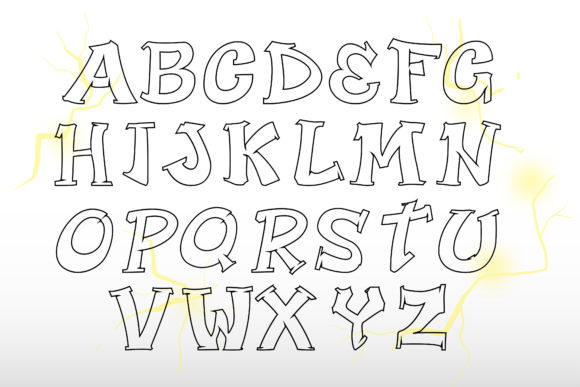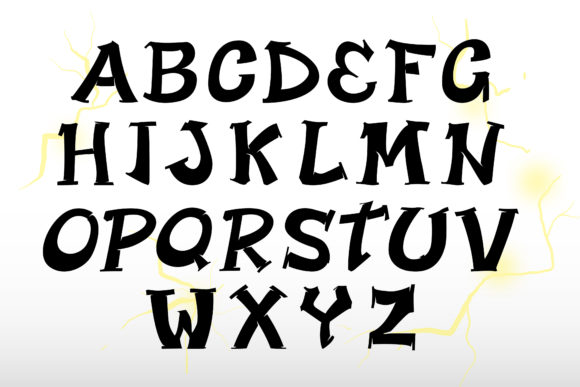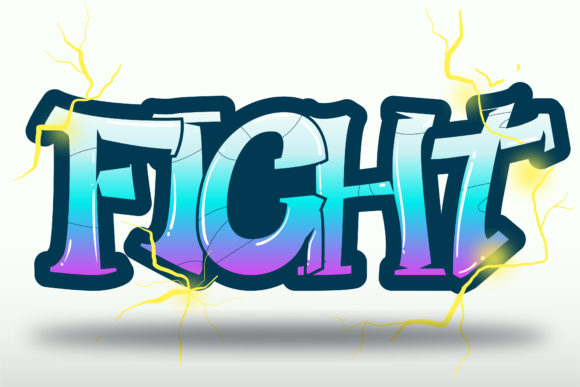
Unleash Your Creativity with Fight Font: The Ultimate Graffiti-Styled Display Font
Are you a designer or crafter looking for a font that can add a touch of edginess and futurism to your designs? Look no further than Fight Font, a graffiti-styled display font that’s perfect for creating bold and eye-catching designs. In this article, we’ll explore the features and benefits of Fight Font, and show you how to make the most of this awesome font.
What is Fight Font?
Fight Font is a stunning graffiti-styled display font that’s designed to give your designs a futuristic and street art vibe. With its bold and edgy letterforms, this font is perfect for creating designs that demand attention. Whether you’re working on a t-shirt design, sportswear, logo, advertisement, or clothing, Fight Font is the perfect choice.
Key Features of Fight Font
- Graffiti-Styled Letterforms: Fight Font features bold and edgy letterforms that are inspired by graffiti art. Each letter is carefully crafted to give your designs a unique and street art-inspired look.
- Display Font: Fight Font is a display font, which means it’s designed to be used at larger sizes. This makes it perfect for headlines, titles, and other design elements that need to make a big impact.
- Futuristic and Street Art Vibe: Fight Font has a distinctly futuristic and street art vibe, making it perfect for designers who want to create designs that are edgy and modern.
- Highly Versatile: Fight Font can be used for a wide range of design projects, from t-shirts and sportswear to logos and advertisements.
Benefits of Using Fight Font
So why should you choose Fight Font for your next design project? Here are just a few benefits of using this awesome font:
- Adds Edginess to Your Designs: Fight Font is the perfect way to add a touch of edginess to your designs. Its bold and graffiti-styled letterforms are sure to make your designs stand out.
- Perfect for Streetwear and Sportswear: If you’re designing for streetwear or sportswear, Fight Font is a great choice. Its futuristic and street art vibe is perfect for creating designs that appeal to a younger audience.
- Easy to Read: Despite its bold and edgy style, Fight Font is surprisingly easy to read. This makes it perfect for use in headlines and titles, where you want to make a big impact without sacrificing legibility.
- Customizable: Fight Font can be customized to fit your design needs. Whether you want to change the color, size, or style, Fight Font is easy to work with.
How to Use Fight Font in Your Designs
So how can you use Fight Font in your designs? Here are a few ideas to get you started:
- T-Shirt Designs: Fight Font is perfect for t-shirt designs. Use it to create bold and eye-catching headlines or graphics that will make your designs stand out.
- Sportswear: Fight Font is also great for sportswear designs. Use it to create logos, headlines, or other design elements that need to make a big impact.
- Logos: If you’re designing a logo, Fight Font is a great choice. Its bold and edgy letterforms are perfect for creating a logo that demands attention.
- Advertisements: Fight Font is also perfect for advertisements. Use it to create bold and eye-catching headlines or graphics that will grab the attention of your target audience.
Tips and Tricks for Getting the Most out of Fight Font
Here are a few tips and tricks for getting the most out of Fight Font:
- Experiment with Different Colors: Fight Font looks great in a variety of colors. Experiment with different colors to find the one that works best for your design.
- Use it in Combination with Other Fonts: Fight Font can be used in combination with other fonts to create a unique and interesting design. Try pairing it with a sans-serif font for a bold and edgy look.
- Pay Attention to Legibility: While Fight Font is easy to read, it’s still important to pay attention to legibility. Make sure to use a large enough size and a clear enough color to ensure that your text is easy to read.
In conclusion, Fight Font is an awesome graffiti-styled display font that’s perfect for designers and crafters who want to add a touch of edginess and futurism to their designs. With its bold and edgy letterforms, highly versatile design, and ease of use, Fight Font is the perfect choice for a wide range of design projects. So why wait? Download Fight Font today and start creating bold and eye-catching designs that demand attention!